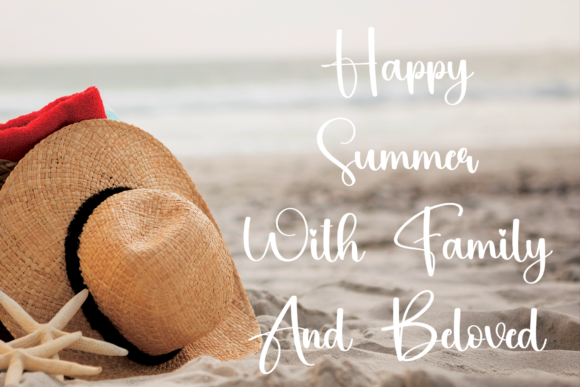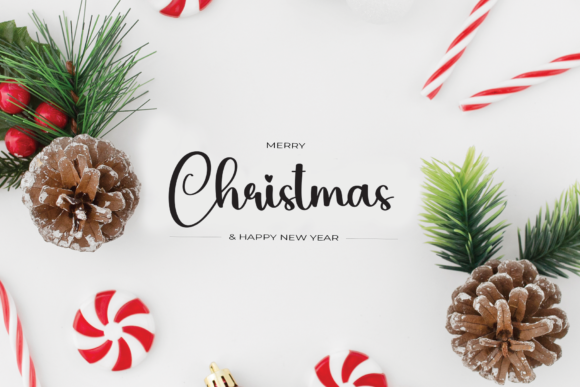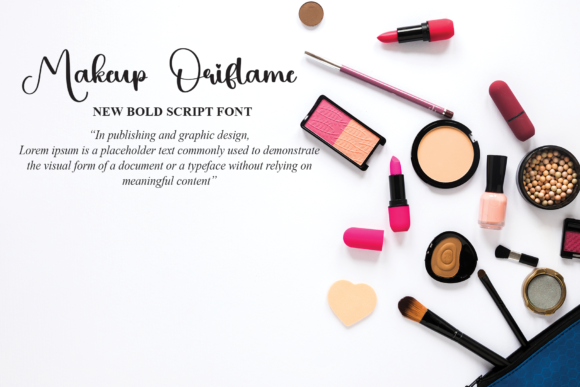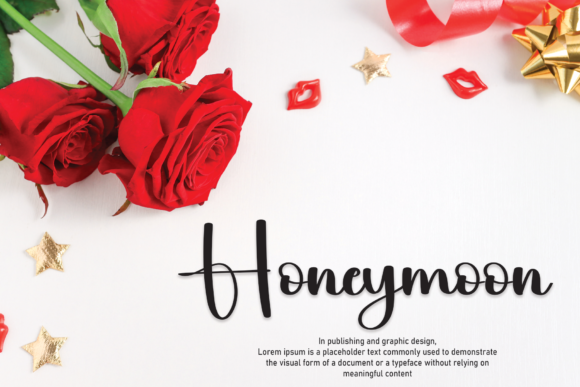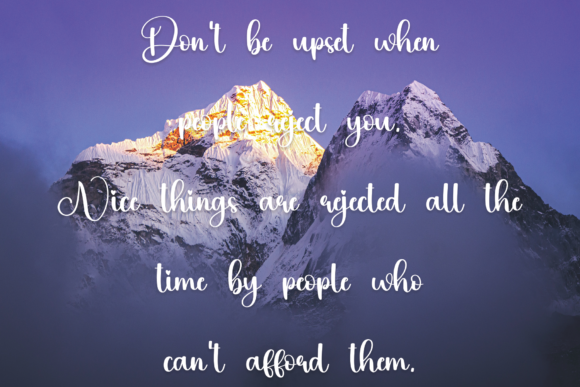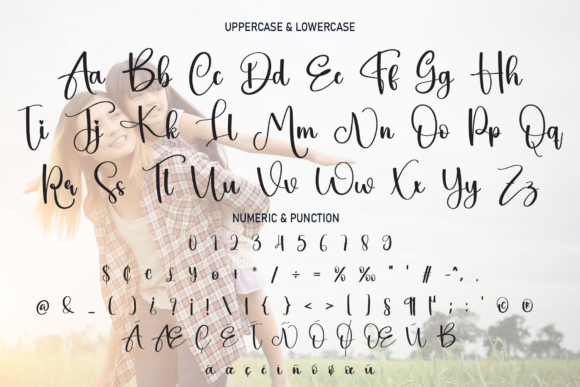
Introduction to Hey Mother Font
Have you ever stumbled upon a design that makes your heart skip a beat, and you can’t help but wonder how to recreate that magic in your own creative project? For many designers, this is the ultimate thrill – and it’s exactly what the Hey Mother Font aims to deliver.
This stunning script font is more than just a pretty face; it’s a design resource that can elevate your work to new heights. With its delicate hearts for dots and swashes, the Hey Mother Font radiates a romantic, whimsical feel that’s perfect for wedding designs, logos, invitations, and social media posts. Plus, its transparent background makes it a breeze to use on any design surface.
Key Features of Hey Mother Font
• High-quality design resource with a wide range of creative applications, perfect for various projects.
• Comes with a transparent background, allowing for seamless integration into any design.
• Unique and stylish font design, ideal for adding a touch of elegance to any creative project.
Honest Review: Hey Mother Font
As a designer, I’m always on the lookout for high-quality fonts to elevate my creative projects. Hey Mother Font caught my attention with its unique style and versatility. After giving it a spin, I’m excited to share my honest review.
What works well: ✨ The font’s modern and playful feel makes it perfect for projects that require a touch of whimsy. I love the range of styles, from bold and edgy to soft and elegant. The transparent background feature is also a game-changer, allowing for seamless integration with any design element.
Overall, I’m impressed with Hey Mother Font’s design resource. It’s a great addition to any designer’s toolkit, offering high-quality options for creative projects. With a little tweaking to resolve the compatibility issues, I’d highly recommend it to fellow designers.
• Unique and versatile style
• High-quality design
How to Use Hey Mother Font
Hey Mother Font is a high-quality design resource available for free download. It can be used in a variety of creative projects, from graphic designs to digital art.
Tips for Getting the Most Out of Hey Mother Font
To get the most out of Hey Mother Font, use it with a transparent background to create visually appealing designs. Experiment with different font sizes and styles to add depth and interest to your projects.
Hey Mother Font is commonly used in graphic designs, social media graphics, and digital art. It can also be used in presentations, documents, and websites.